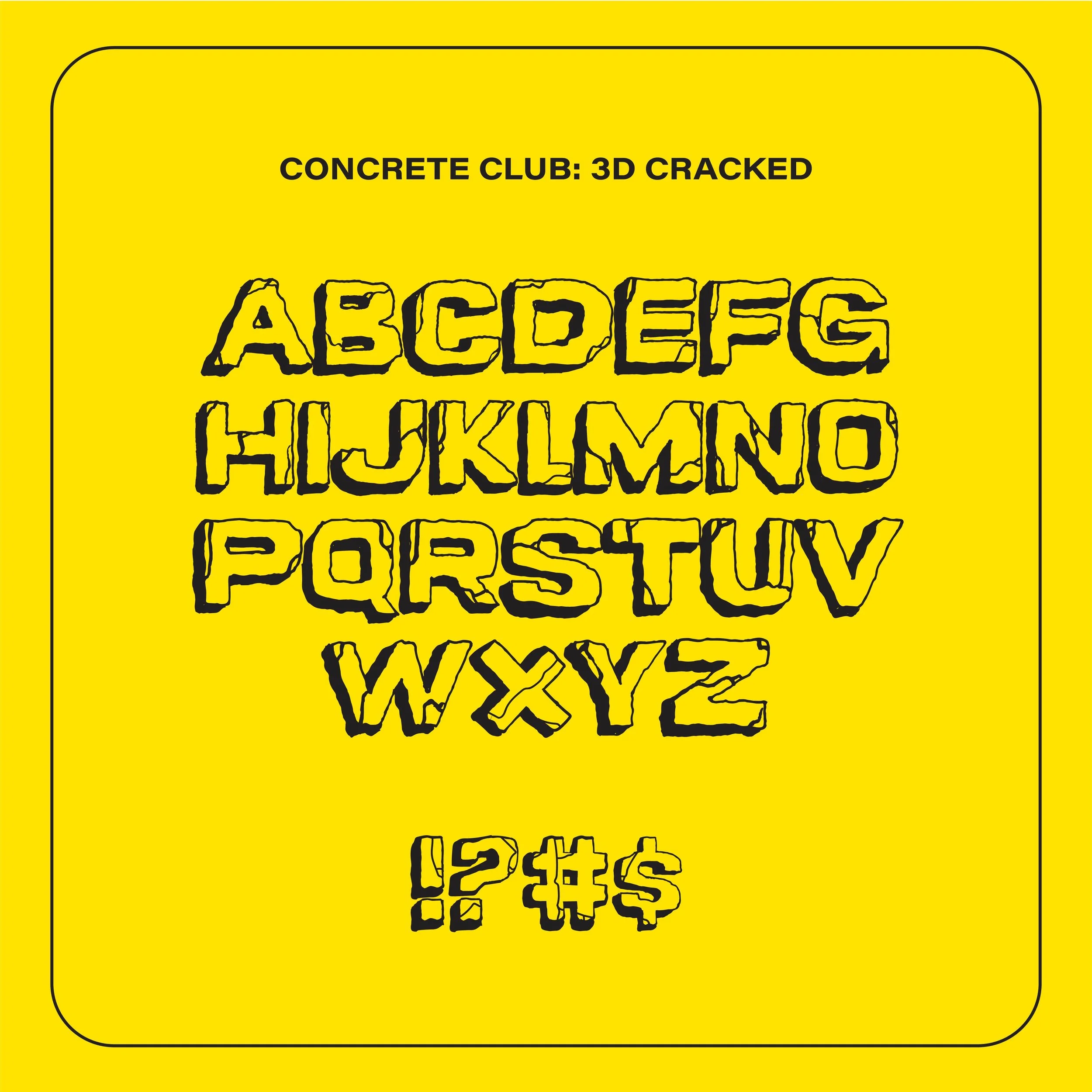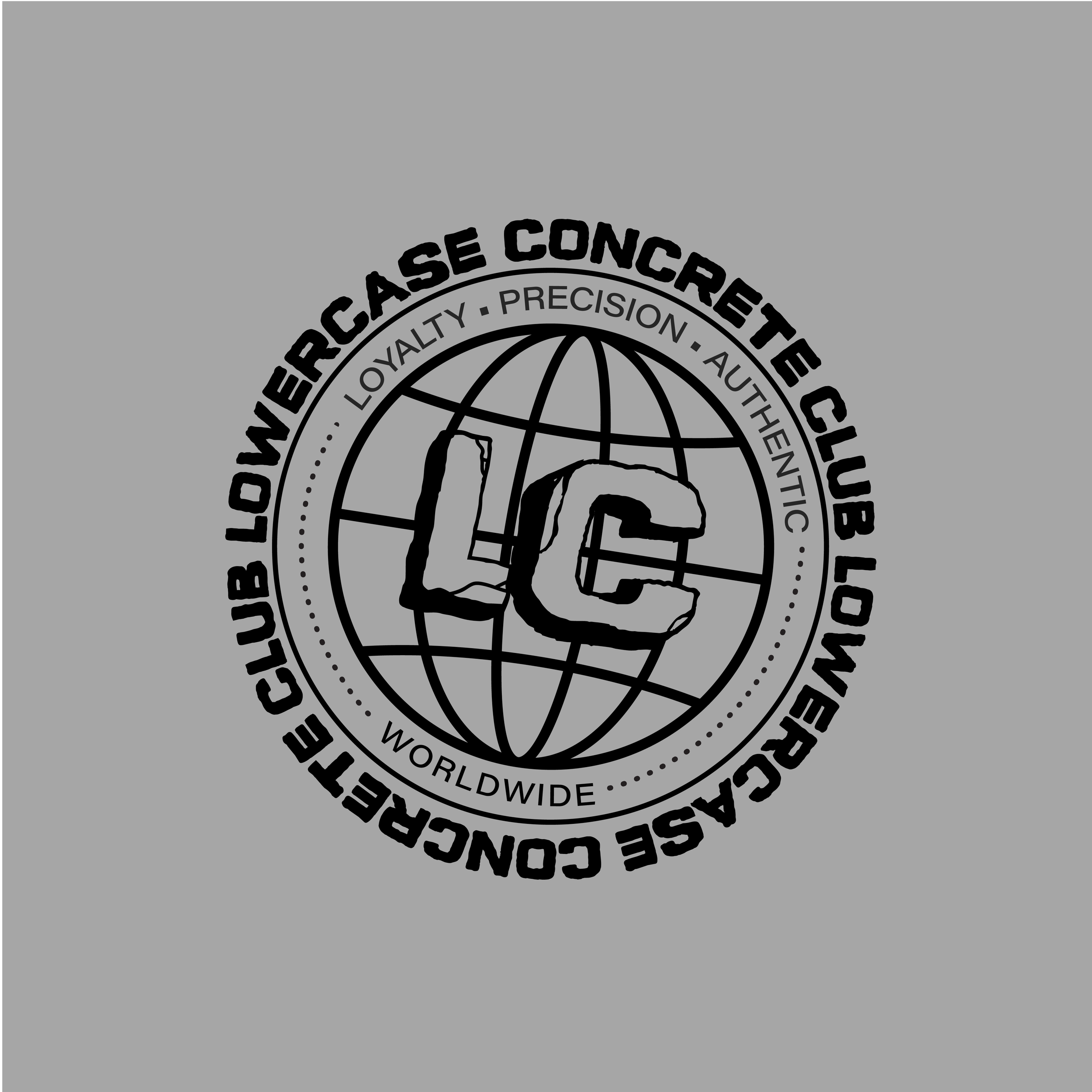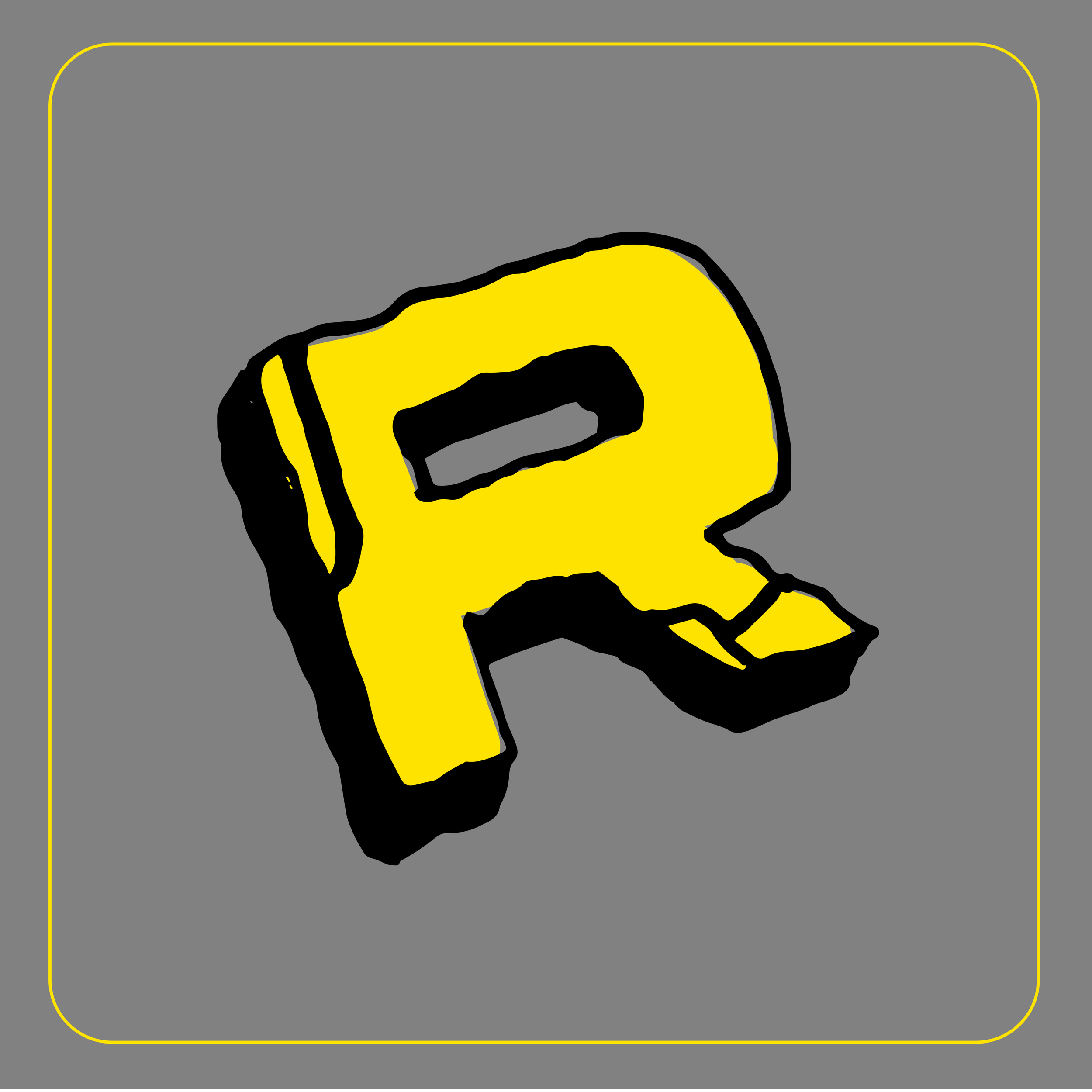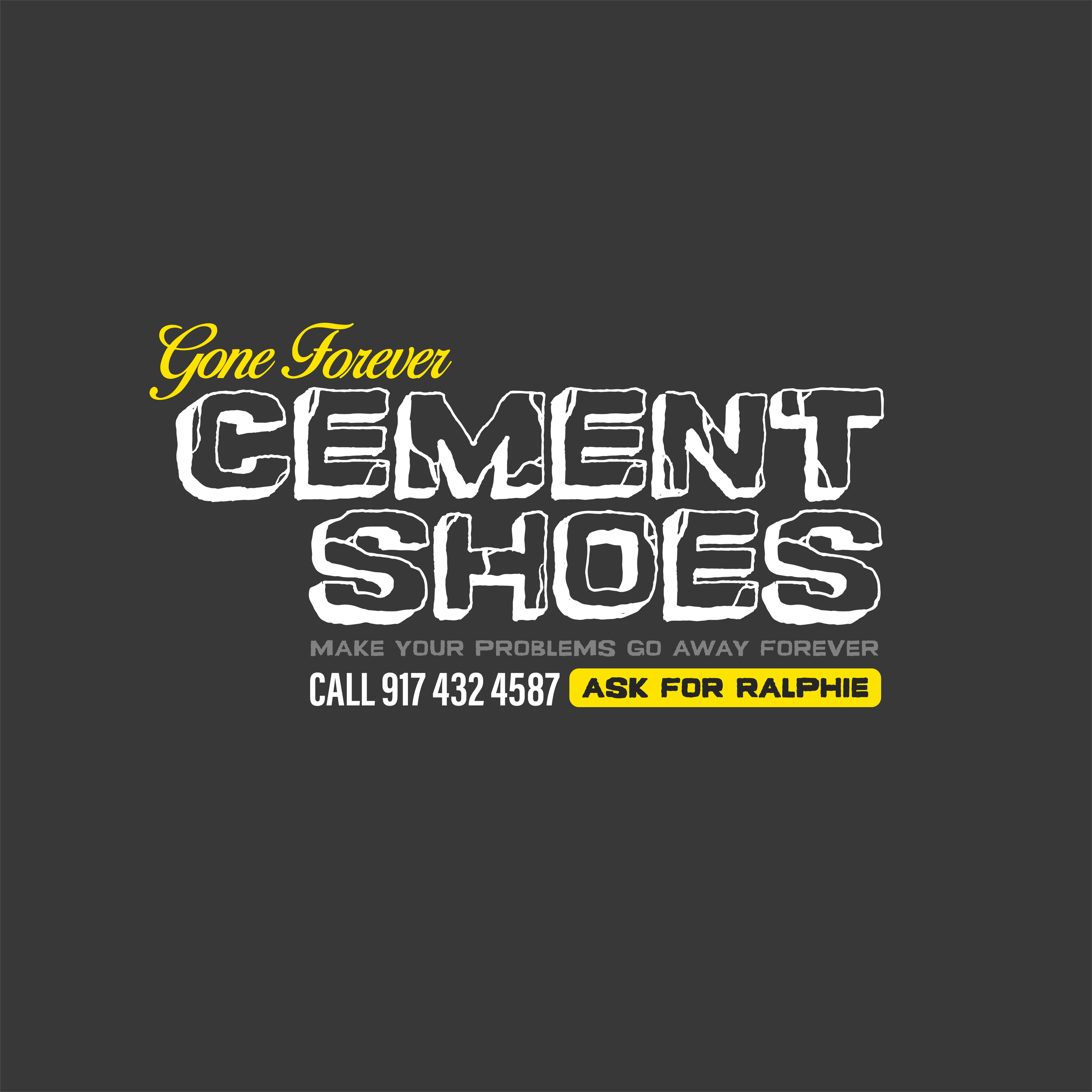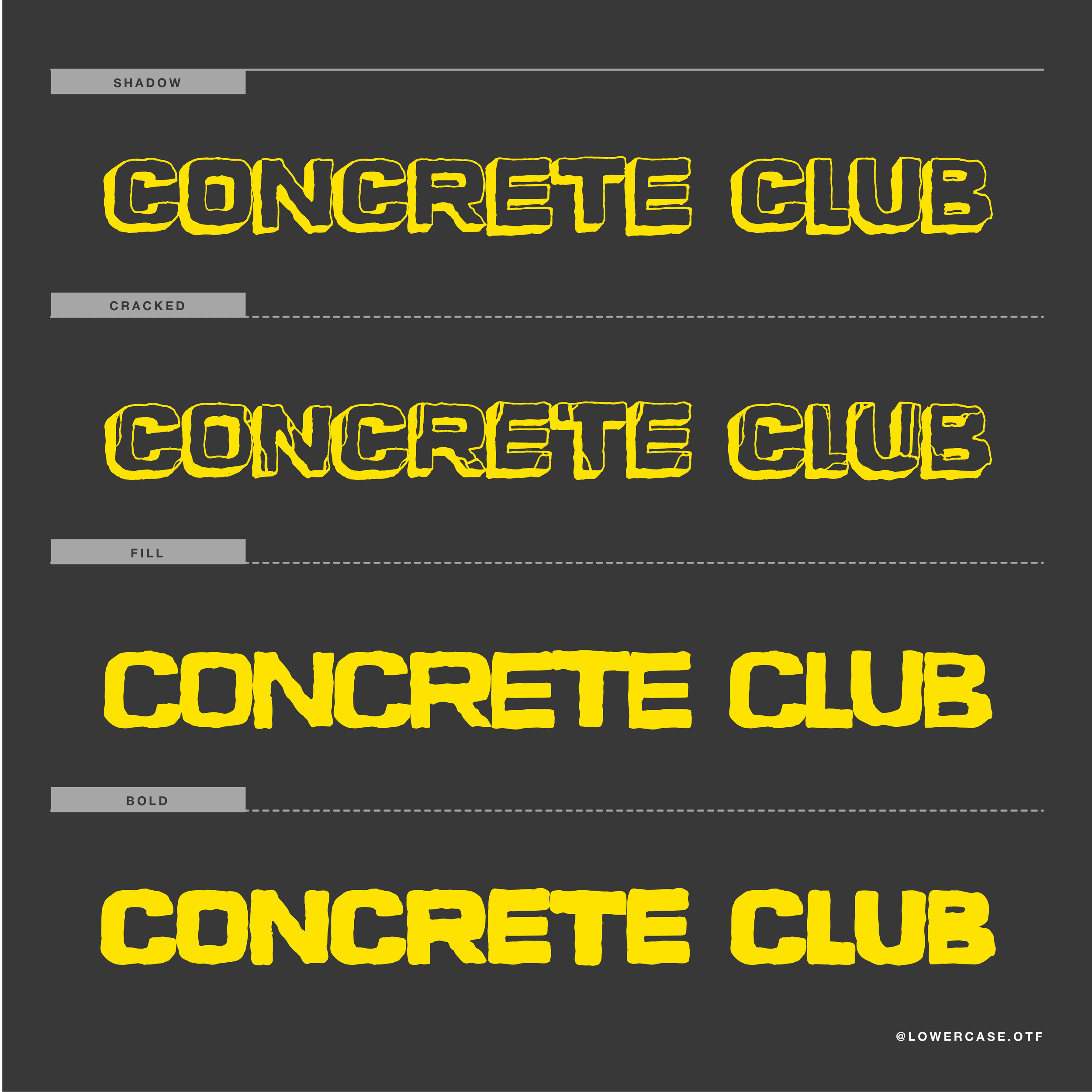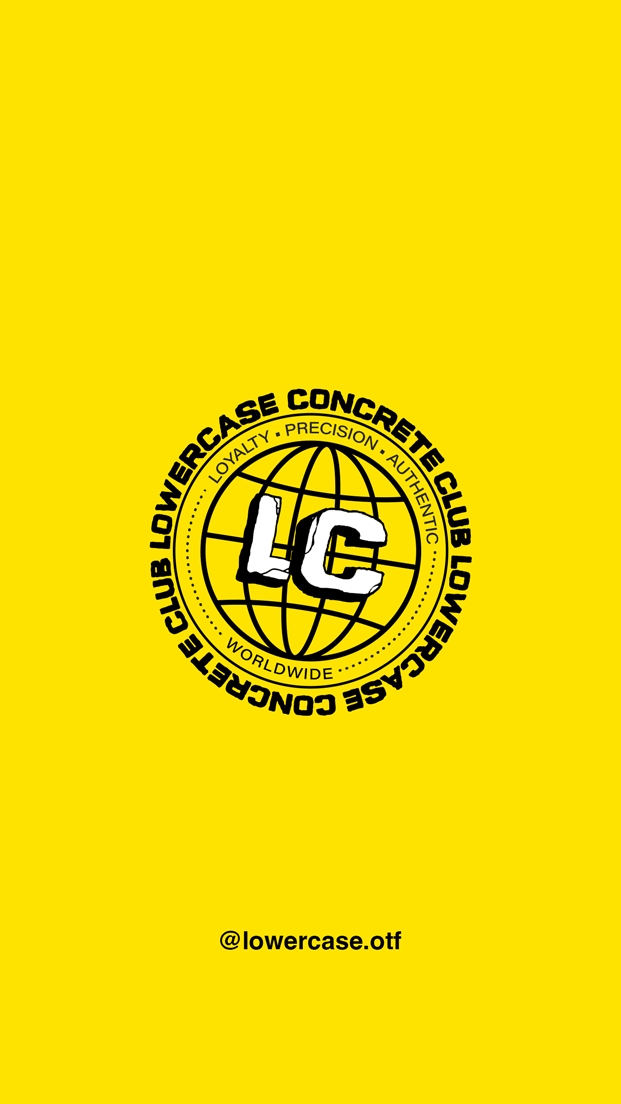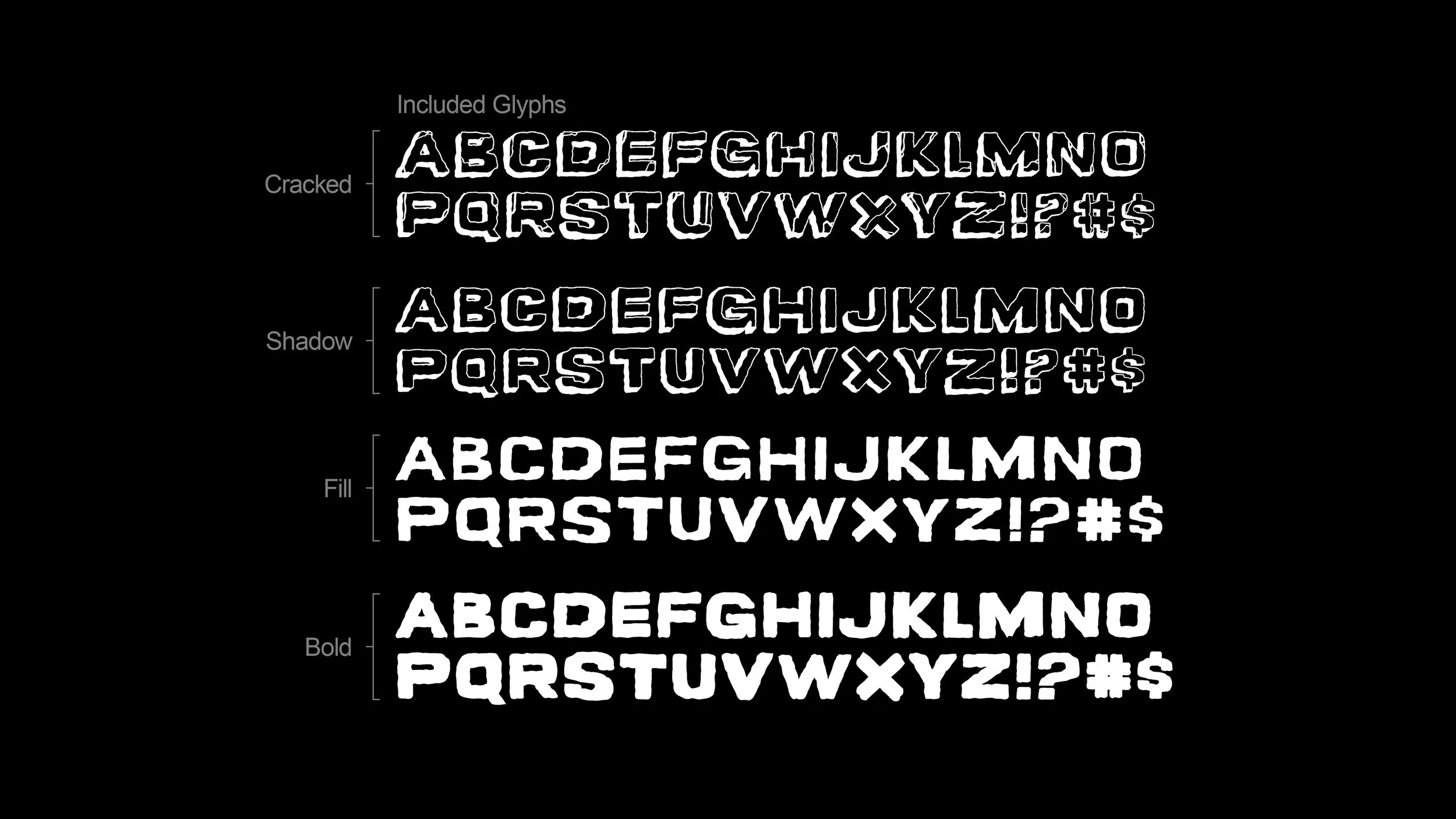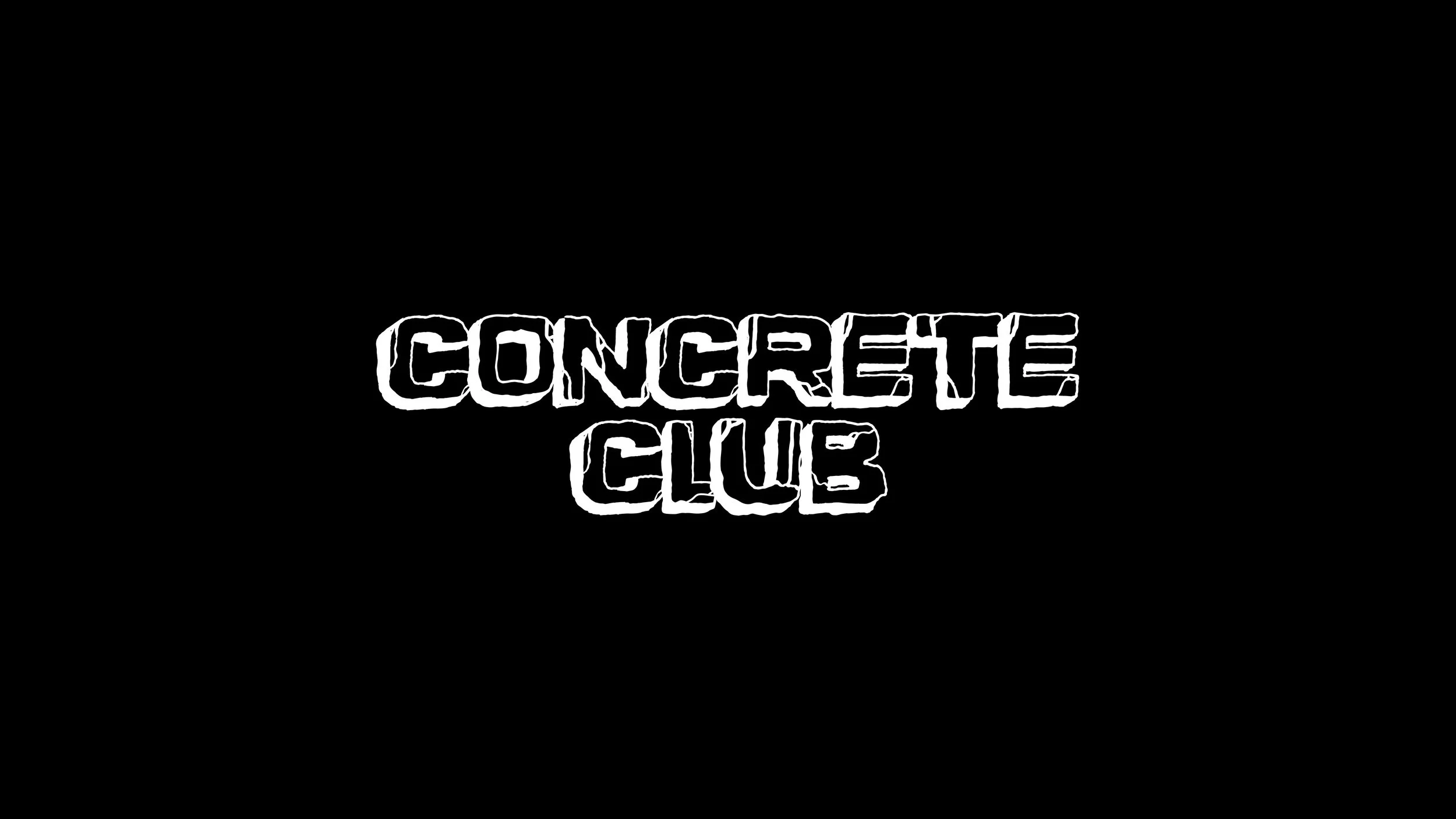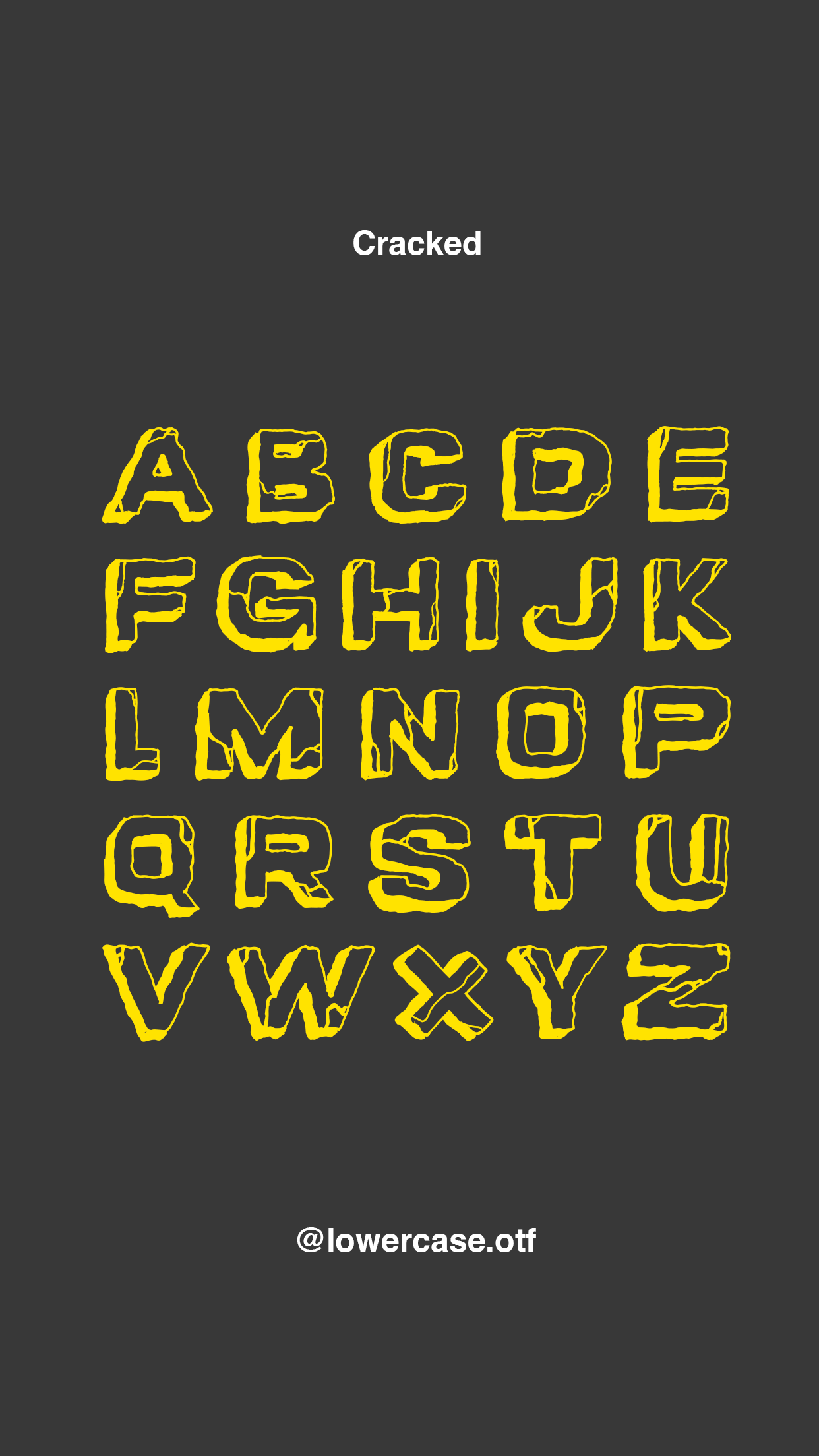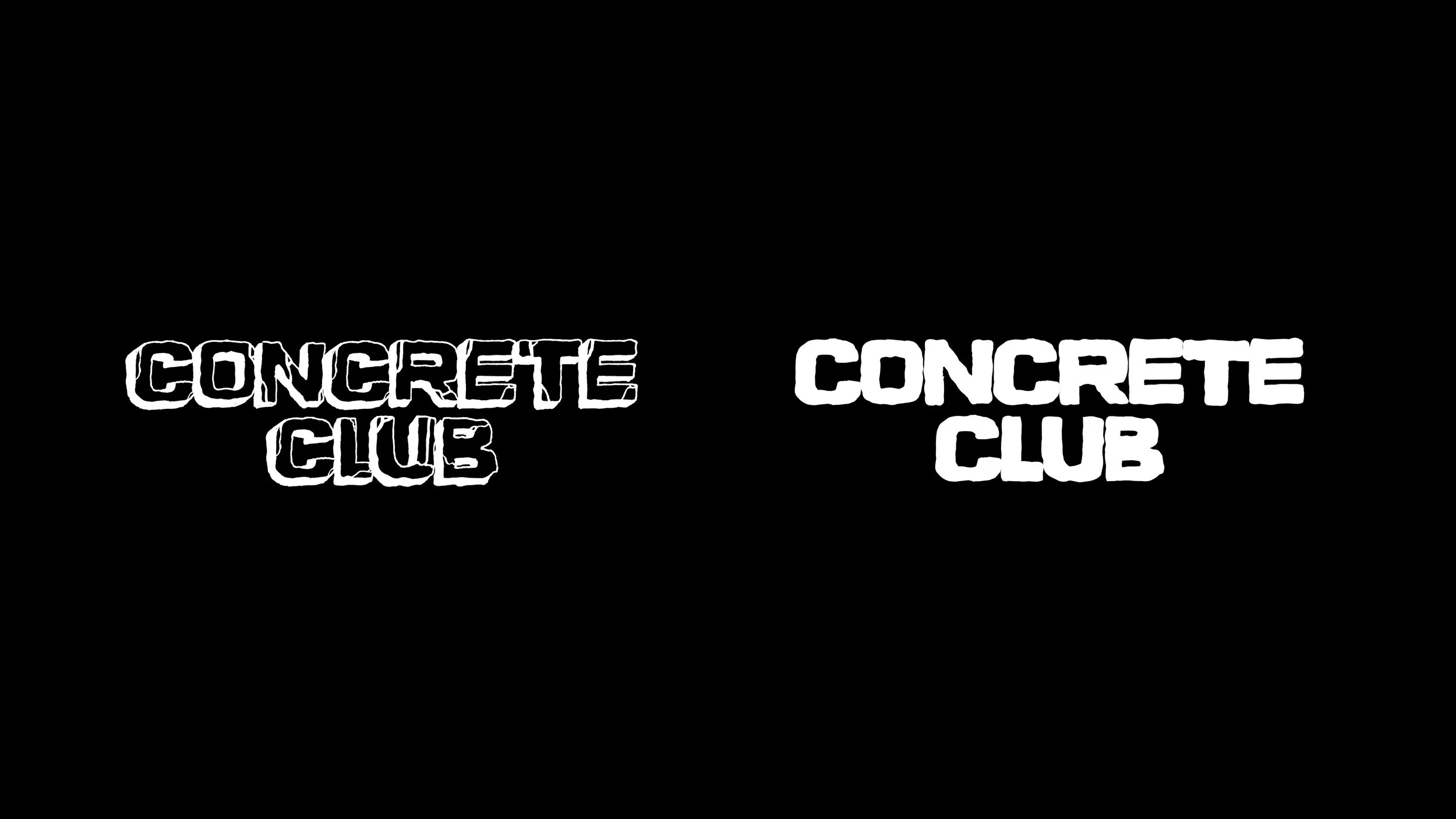
“Concrete Club” is a bulky, hand-drawn typeface inspired by concrete. Bold, square letterforms give it a raw, heavy feel. Available in four styles.
Name: Concrete Club